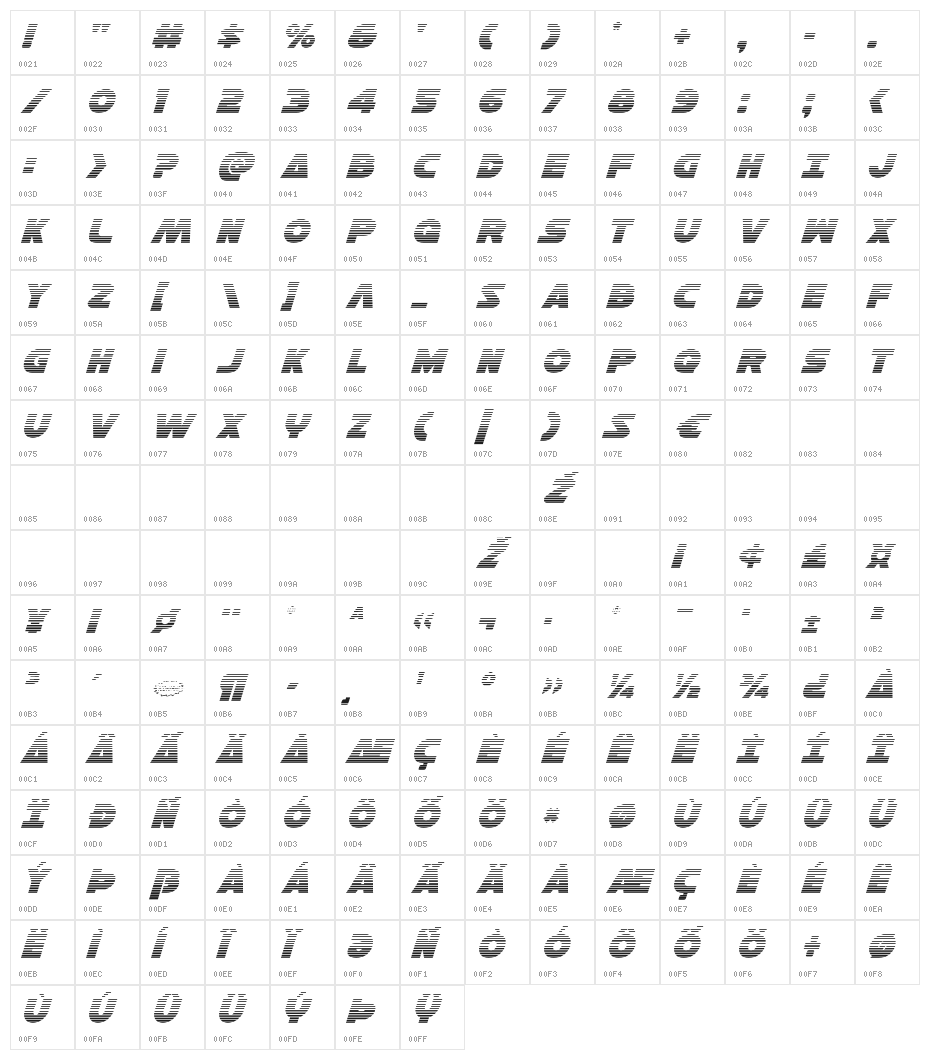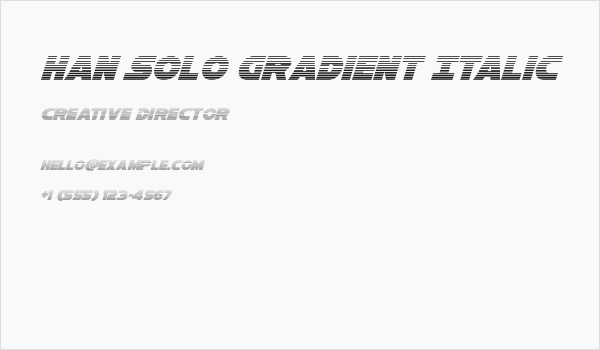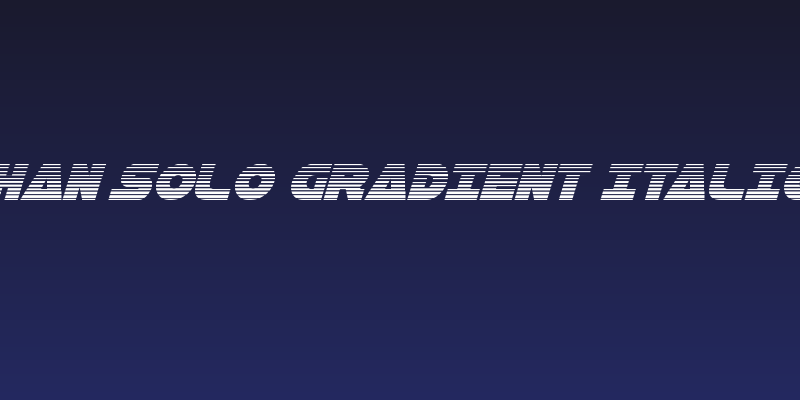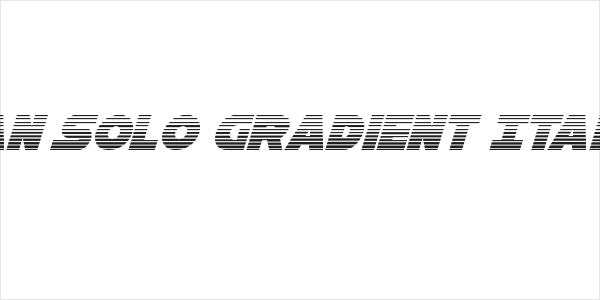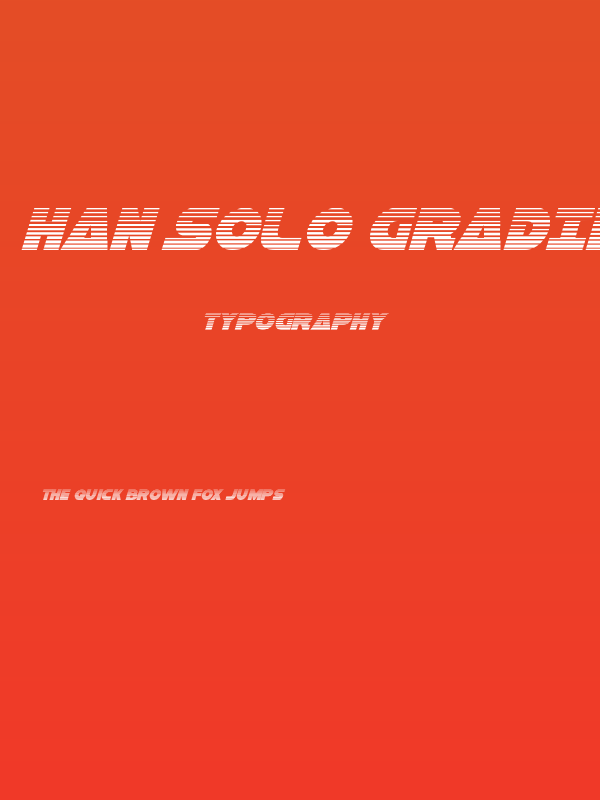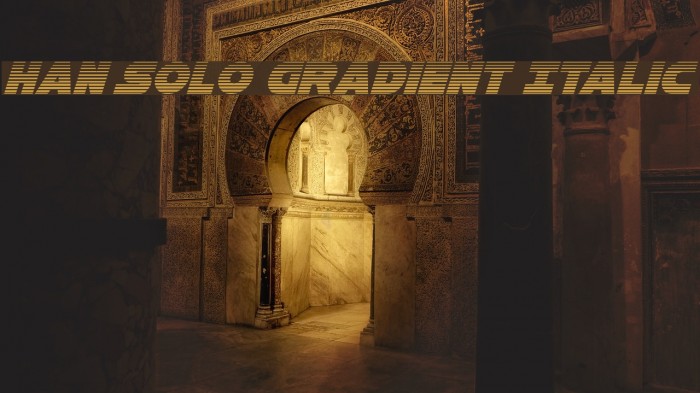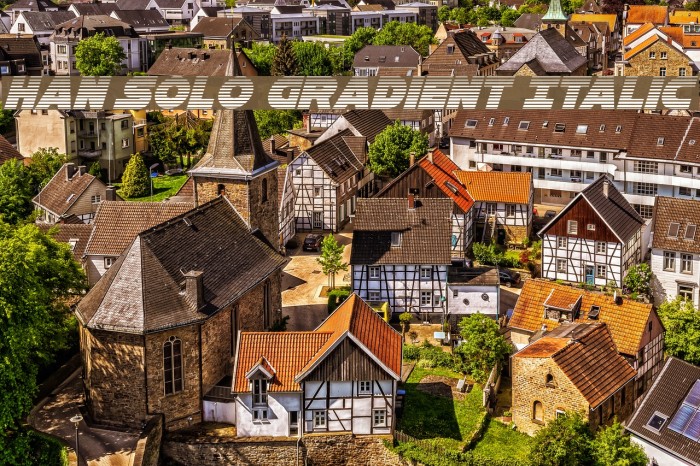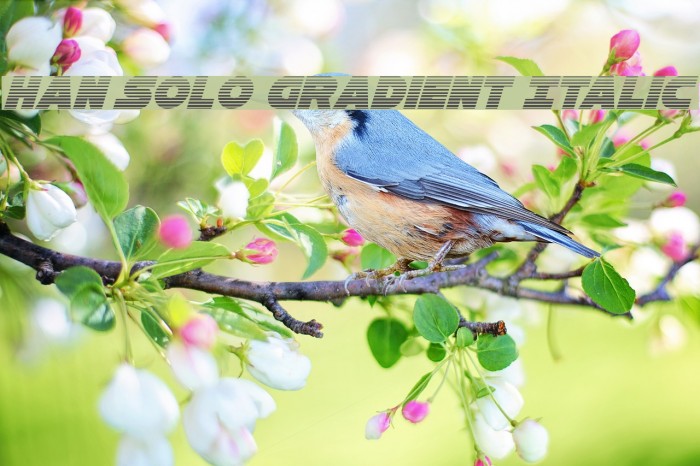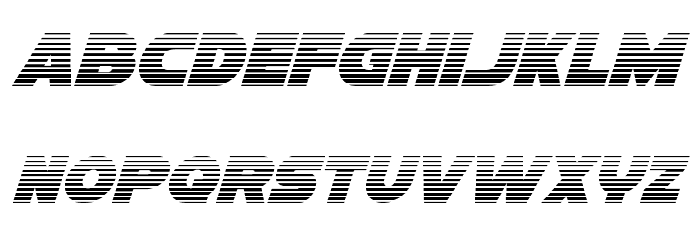
Han Solo Gradient Italic Font
Han Solo Gradient Italic Description
This font features a bold, italicized style with a distinctive gradient effect created by horizontal lines cutting through each character. The uppercase letters are prominent and dynamic, giving a sense of motion and speed. The numbers and special characters maintain this energetic style, making them ideal for attention-grabbing designs. The overall appearance is modern and futuristic, with a unique flair that sets it apart from traditional fonts. The spacing between characters is tight, enhancing the compact and cohesive look of the text.
| Overall Style | Modern, Futuristic |
| Use Case | Logos, Headlines, Posters |
| Proposed Projects | Ideal for futuristic branding, sports team logos, video game titles, and sci-fi themed posters. |